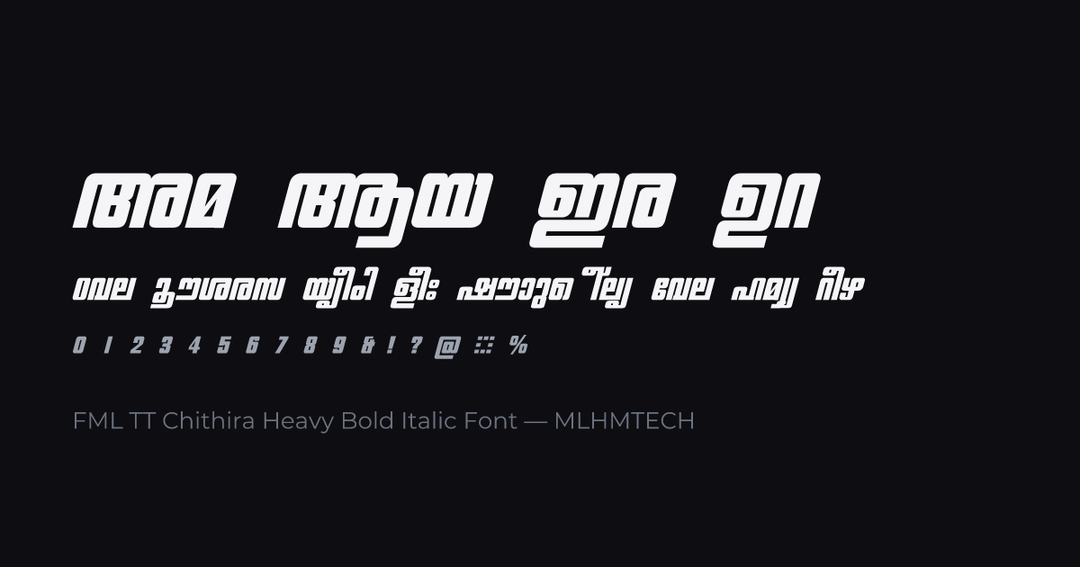
FML TT Chithira Heavy Bold Italic Font
FML TT Chithira Heavy Bold Italic is a high-contrast display font with a heavy weight and italic slant, perfect for impactful headlines and creative branding.
FML TT Chithira Heavy Bold Italic is a distinctive display typeface that combines heavy weight with an italic slant, creating a sense of motion and emphasis. Its bold strokes and sharp angles make it ideal for headlines, posters, and branding that need to stand out.
Whether you're designing a movie poster, a music album cover, or a social media graphic, FML TT Chithira adds a touch of bold sophistication. Its unique character shapes give your text a handcrafted feel, setting your work apart from the crowd.